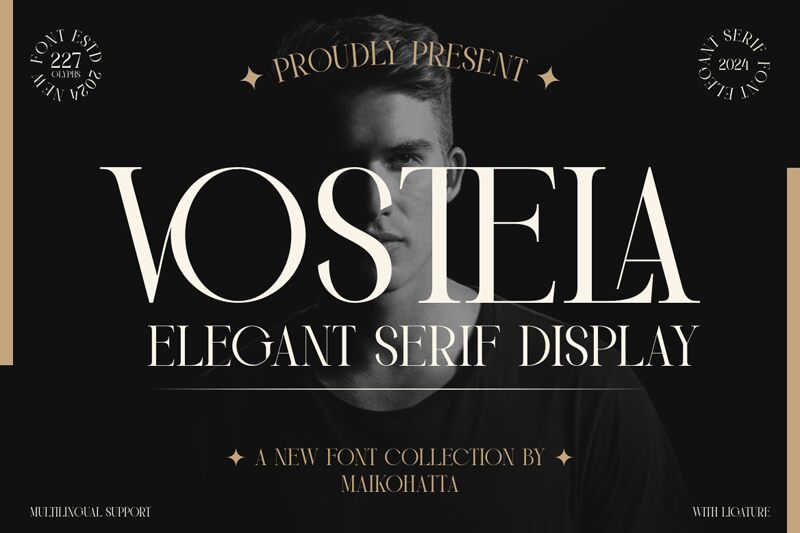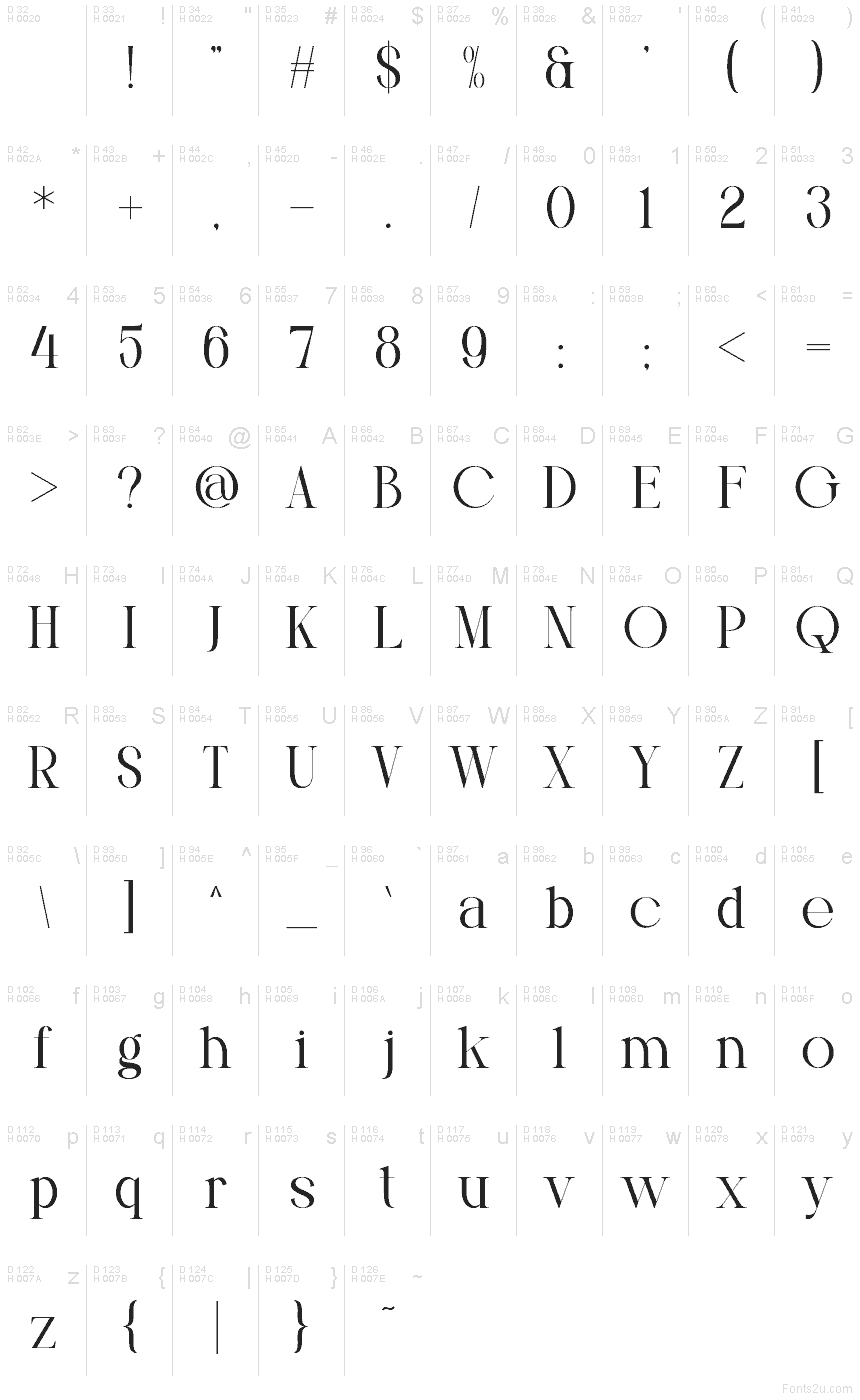
VOSTELA
Vostela font by Gilang Ternadho is a free modern serif typeface. It carries a couture polish: razor-fine hairlines meet bold verticals, with wedge-like serifs that cut in clean and crisp. The letters feel tall and poised, giving headlines a cool, glassy shine while keeping shapes profoundly readable.
Using Vostela, you get instant presence for fashion branding, magazine mastheads, luxe packaging, event posters, book covers, and statement logos. Its rhythm is tight and confident, so it holds attention without shouting. Set it large to show the sculpted details, and pair this free font with a quiet grotesk sans for body copy to let the serif do the talking.